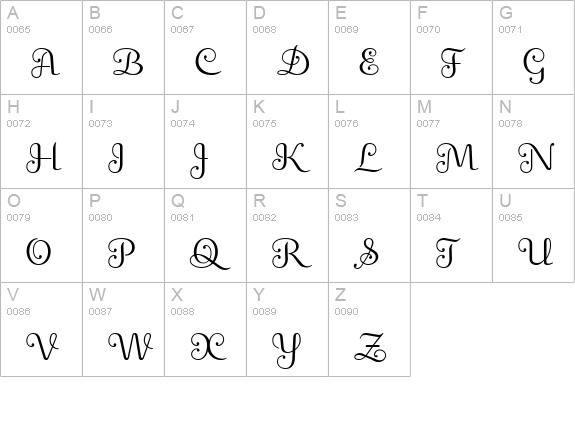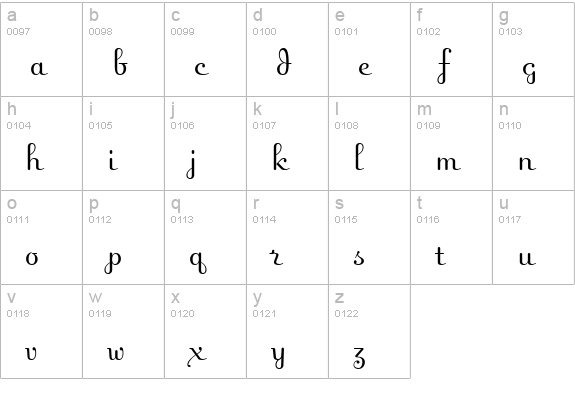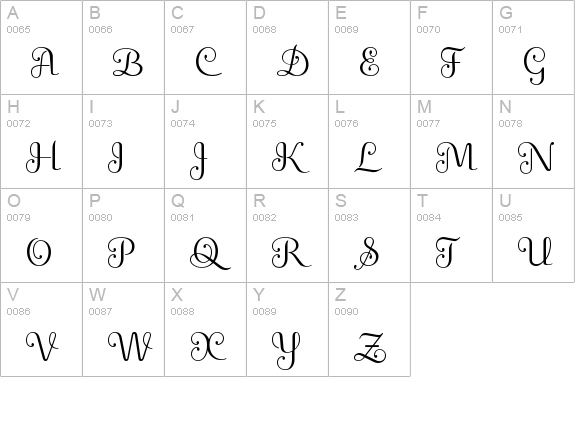
Fling LET Font Details
Fling LET font is a stunning display typeface that exudes elegance and sophistication. With its unique and modern design, this font is perfect for adding a touch of style to any project. The sleek lines and graceful curves of Fling LET font make it ideal for use in branding, advertising, packaging, and more. What sets Fling LET font apart is not only its striking appearance but also the fact that it is available for free download. That's right, you can get your hands on this fabulous font at no cost at all, simply by visiting FontsMarket.com. Whether you're a designer looking to elevate your creations or a business owner aiming to make a memorable impression, Fling LET font is the perfect choice. Download it today and let your creativity soar!